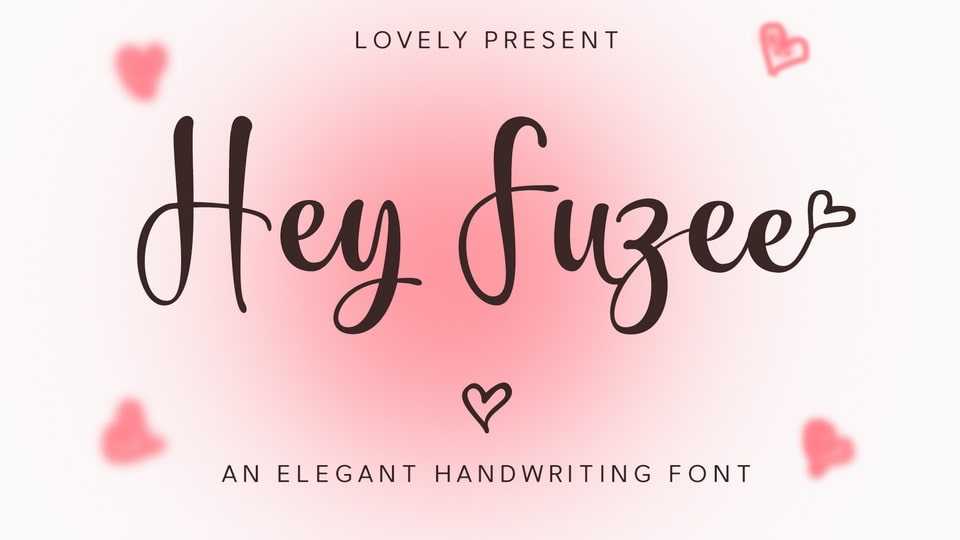
Download Hey Fuzee font, an elegant and playful handwritten typeface that effortlessly combines sophistication with a touch of whimsy.
Designer: Mytype Studio